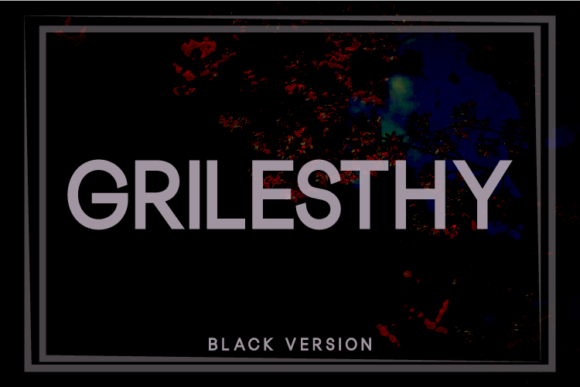
Step into the world of Grilesthy Black Font - a sans serif masterpiece that adds a touch of casual flair and modern elegance to your creative projects. This extraordinary font family from Huntype captivates with its incredibly friendly and approachable demeanor, making it a perfect choice for headlines, blocks of text, and striking visual elements.
Immerse yourself in a spectrum of 10 distinct weights, ranging from a delicate Thin to a bold and powerful Extra Black. Each weight stands as a testament to Grilesthy's versatility, allowing you to tailor your designs to suit your unique vision and style. Whether you seek maximum contrast or subtle variations, Grilesthy delivers with finesse and precision.
Unleash your creativity and let Grilesthy Black Font ignite your imagination. Its smooth curves and sharp angles blend harmoniously, creating a visual symphony that commands attention. Whether crafting captivating headlines, designing eye-catching posters, or composing engaging web content, Grilesthy transforms your words into works of art.
Embrace Grilesthy Black Font and watch your projects come alive with a renewed sense of vibrancy and charm. Its welcoming personality and boundless versatility make it an essential tool for designers, marketers, and content creators who seek to leave a lasting impression.